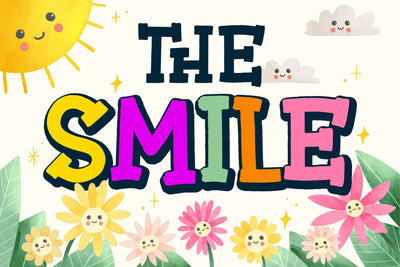
The Smile Fonts
The Smile is a cute, fun, and informal handwritten font. perfect for children's projects, blog posts, logos, branding, ads, invitations, greeting cards, planners, photo albums, decorations, and much more. It will be a wonderful asset to your fonts library as it has the potential to enhance any creation. Add it to any of your designs and enjoy the results!